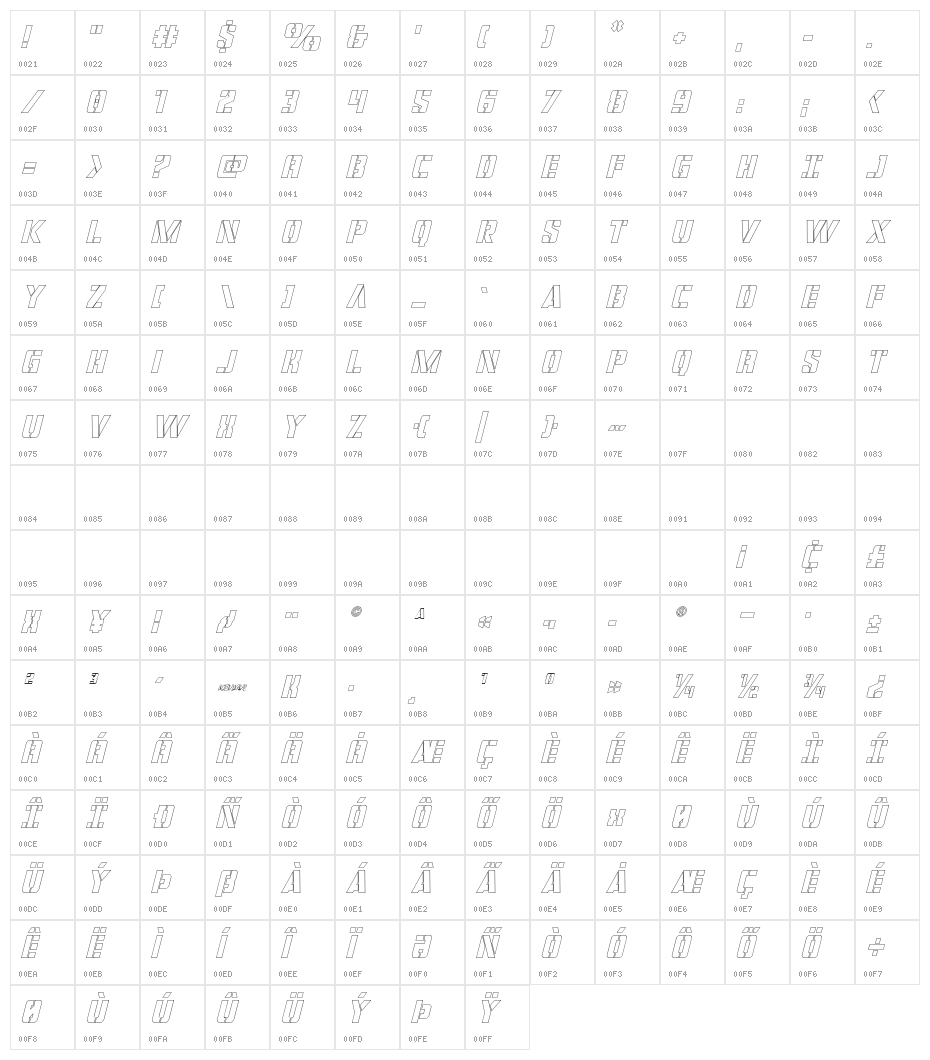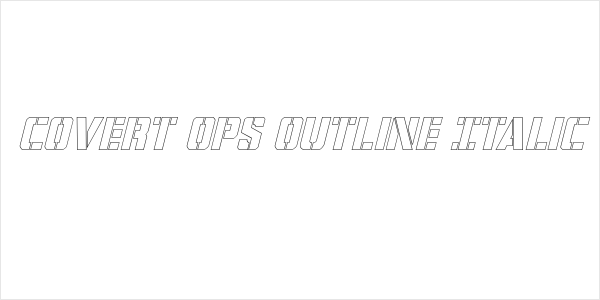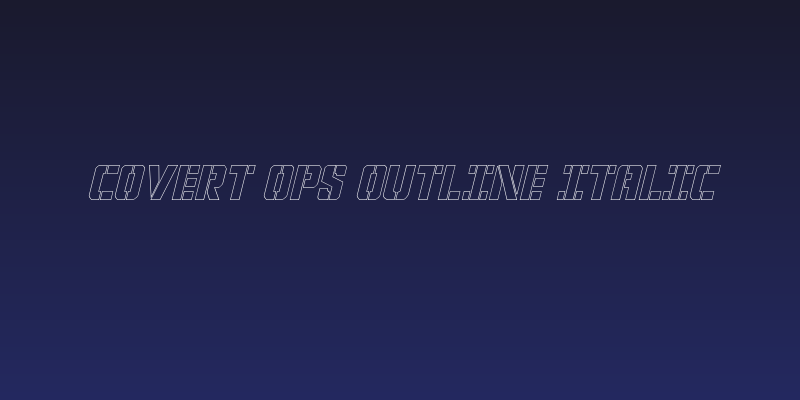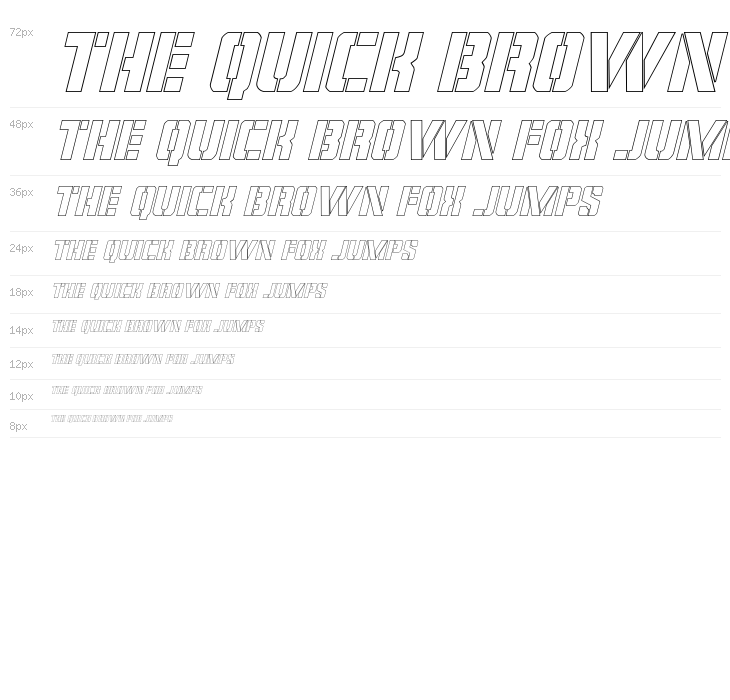
Covert Ops Outline Italic Font
Covert Ops Outline Italic Description
This font features a bold, italicized outline style that gives it a dynamic and futuristic appearance. The characters are constructed with a strong geometric influence, showcasing sharp angles and clean lines. The outline design adds a sense of depth and dimension, making it stand out in any design. The uppercase and lowercase letters maintain consistent proportions, while the numerals and special characters complement the overall aesthetic. This font is ideal for projects that require a modern and edgy look, such as technology-themed designs, gaming graphics, or sci-fi posters.